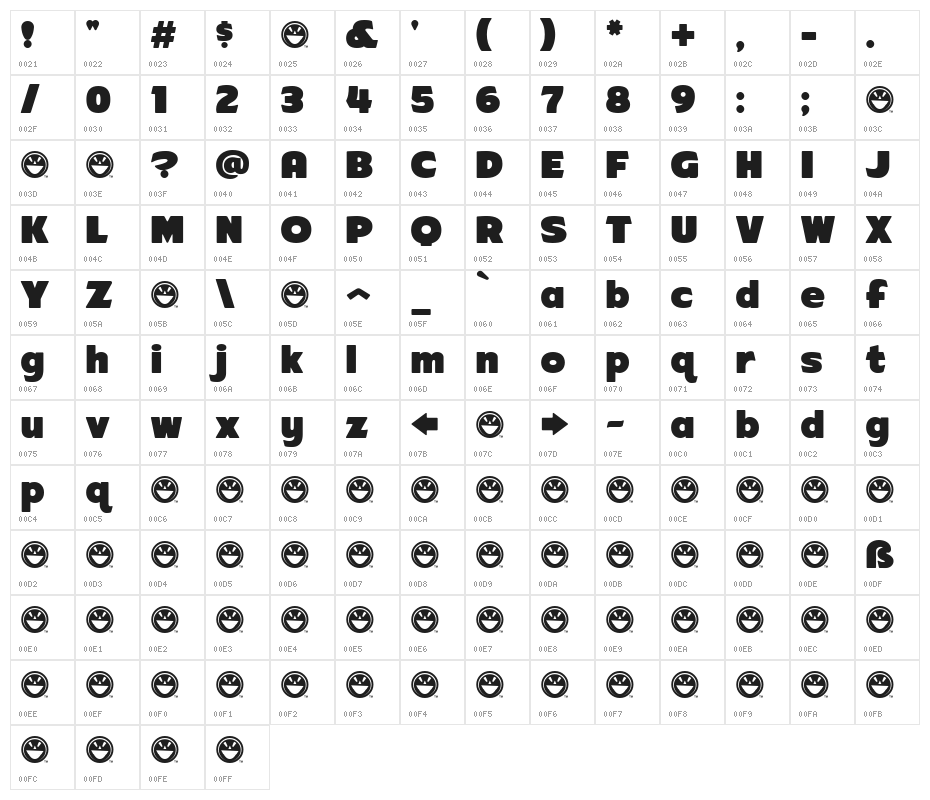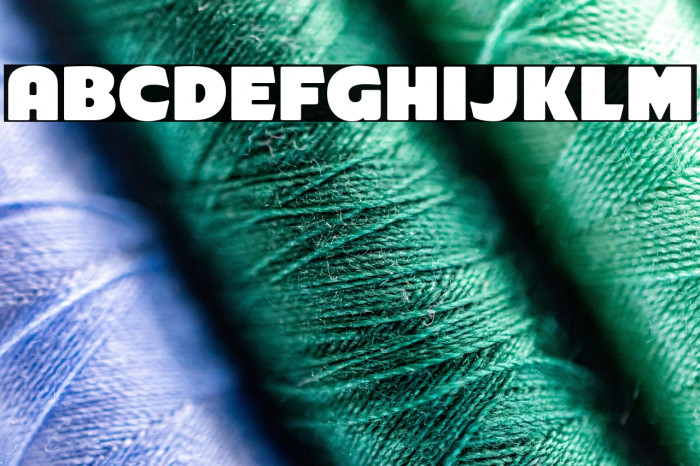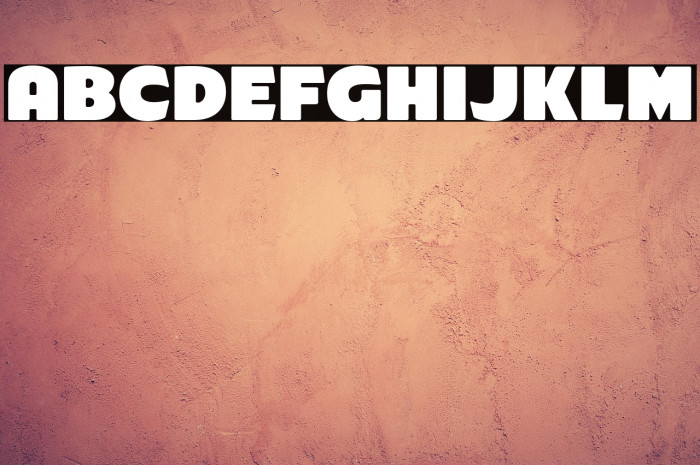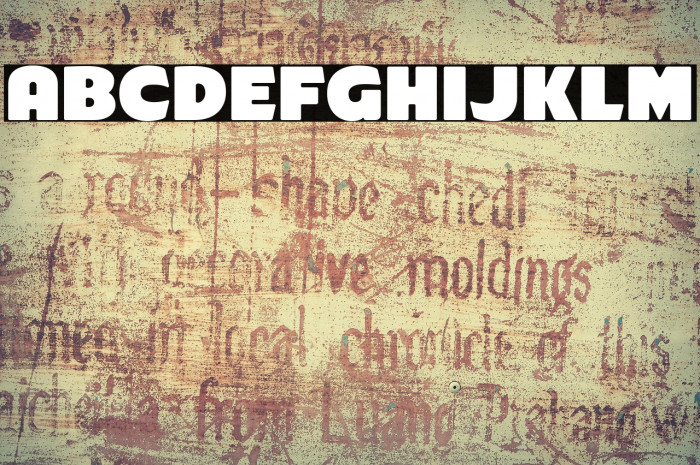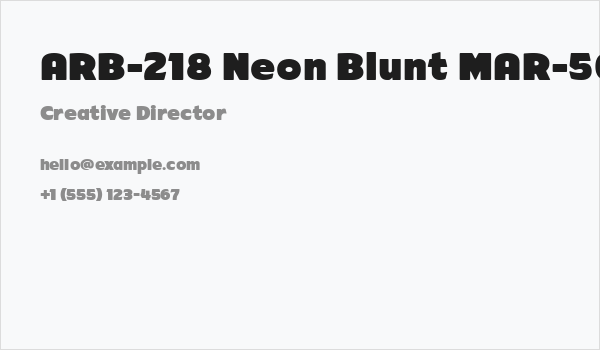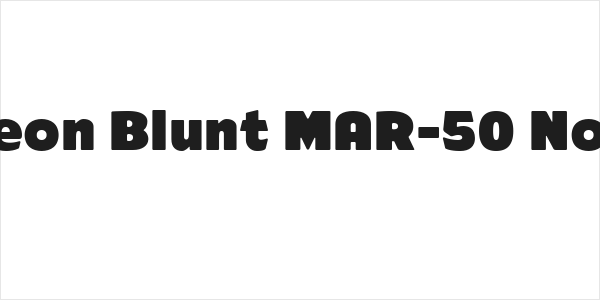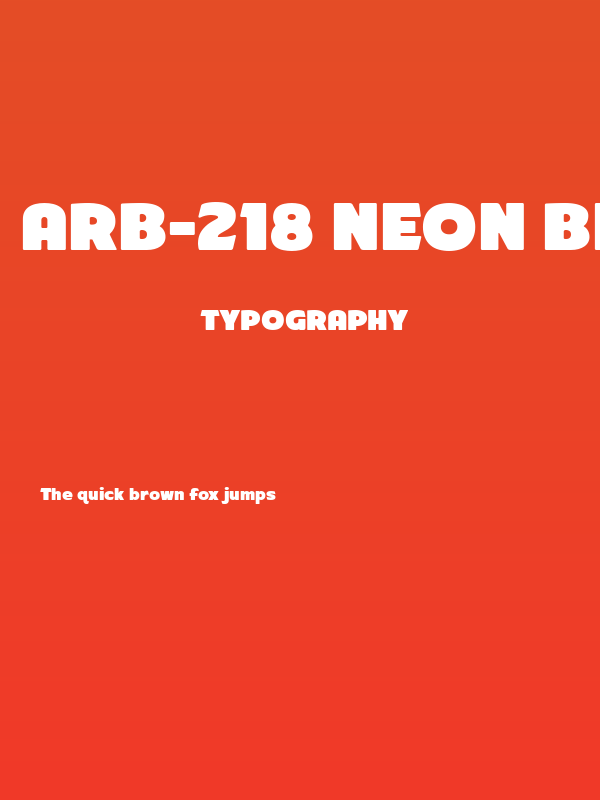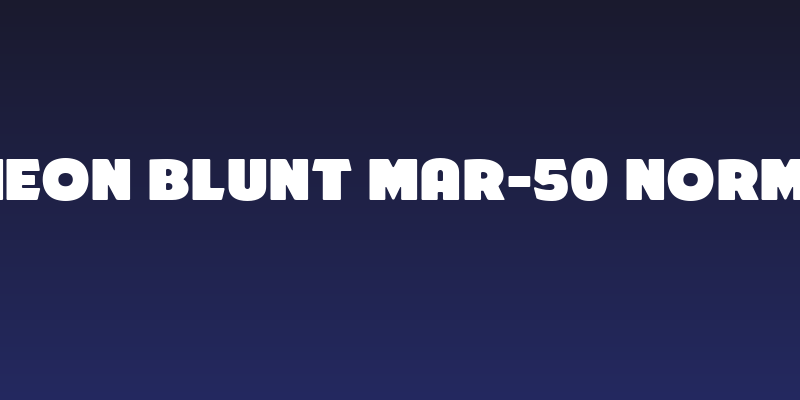
ARB-218 Neon Blunt MAR-50 Normal Italic Font
ARB-218 Neon Blunt MAR-50 Normal Italic Description
This font features bold, rounded characters with a playful and modern aesthetic. The letters are uniformly thick, giving a strong and impactful presence. The uppercase and lowercase letters maintain a consistent style, with a slight curve that adds a friendly touch. Numbers and special characters follow the same design principles, ensuring a cohesive look across all elements. The font's boldness makes it stand out, while its rounded edges soften its appearance, making it suitable for both fun and professional settings.